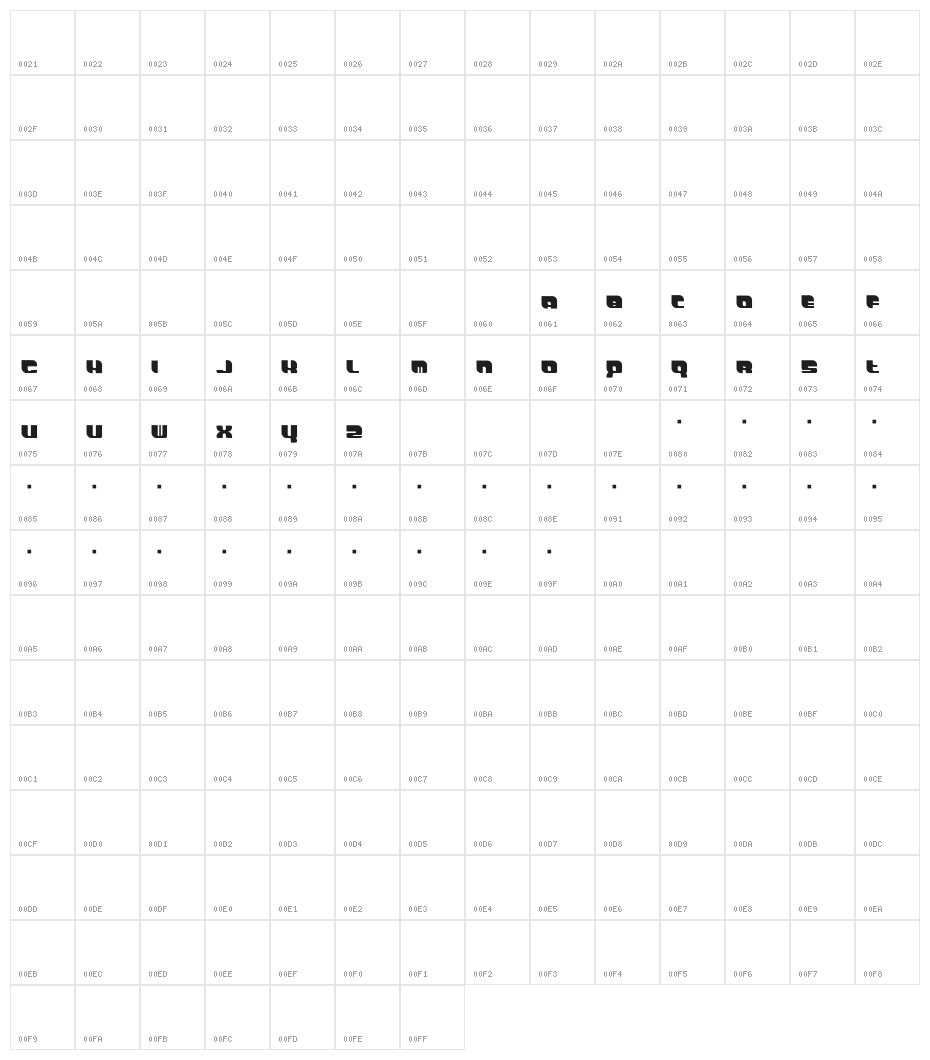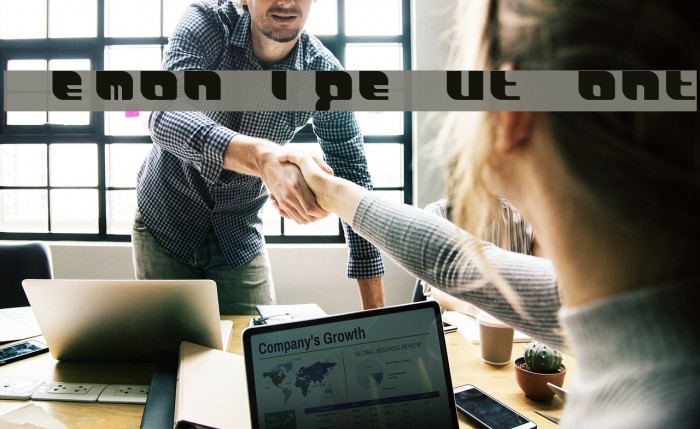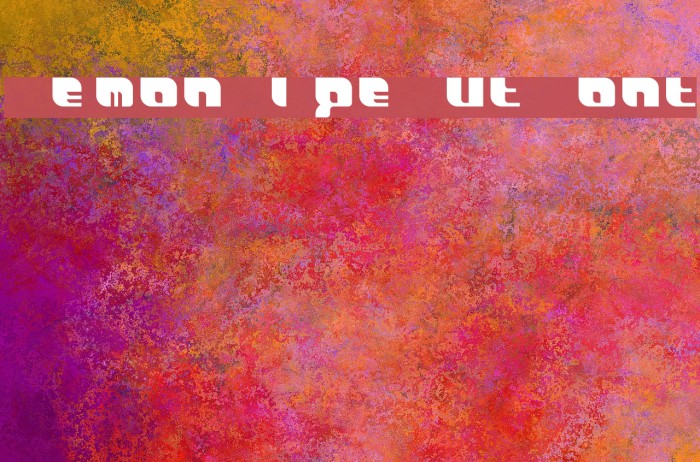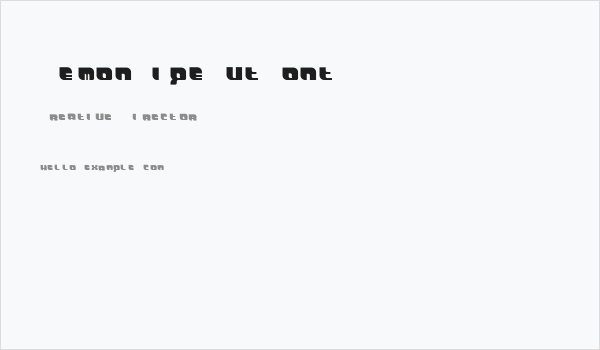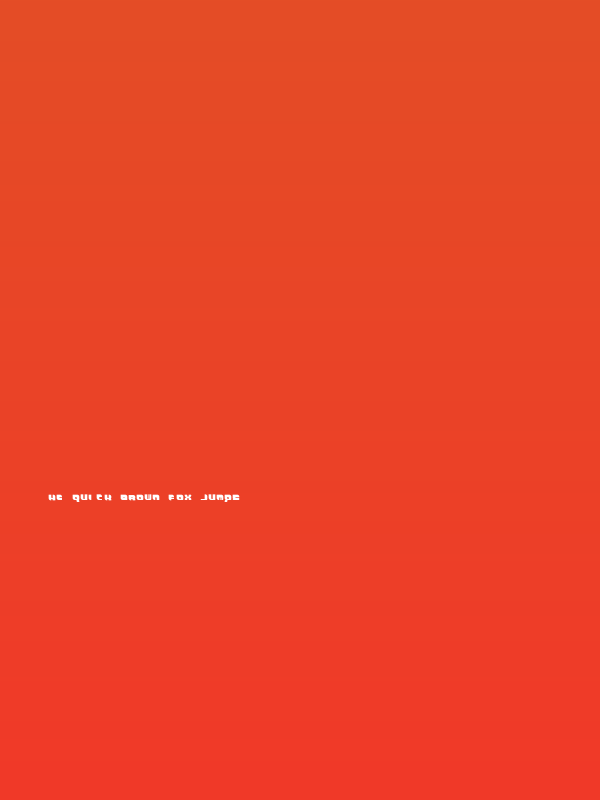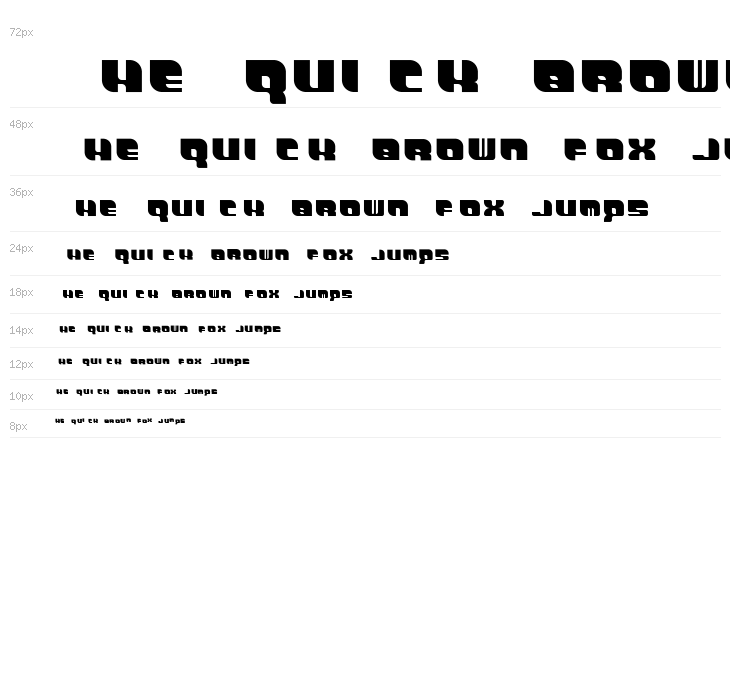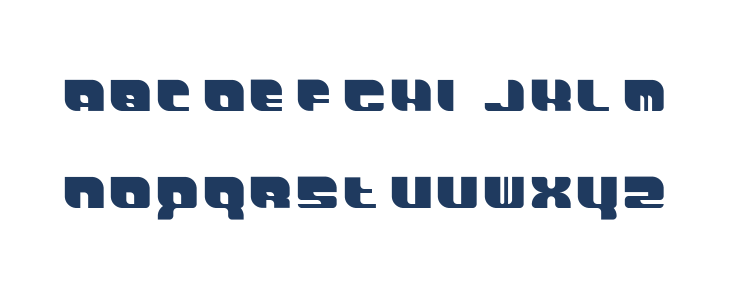
DemonWipeOutFont Font
This font features a bold and futuristic design with a distinct geometric style. Each character is crafted with sharp angles and a blocky appearance, creating a sense of strength and modernity. The uppercase and lowercase letters maintain a consistent width, contributing to a uniform look across the typeface. The numbers and special characters are designed to match the overall aesthetic, ensuring cohesion throughout. This font's unique style makes it stand out, ideal for projects that require a strong visual impact.
Overall StyleFuturistic, Modern
Use CaseHeadlines, Logos, Posters
Proposed ProjectsIdeal for sci-fi themed projects, video game titles, posters, and branding that requires a strong, modern look.